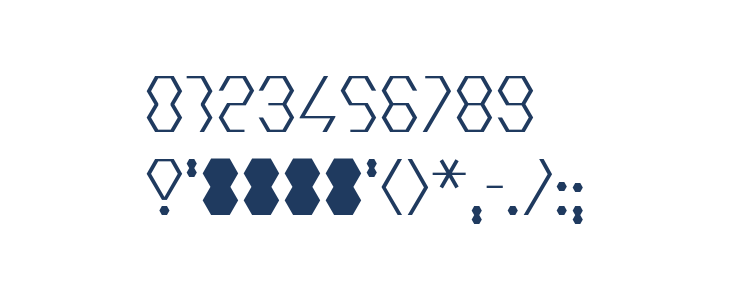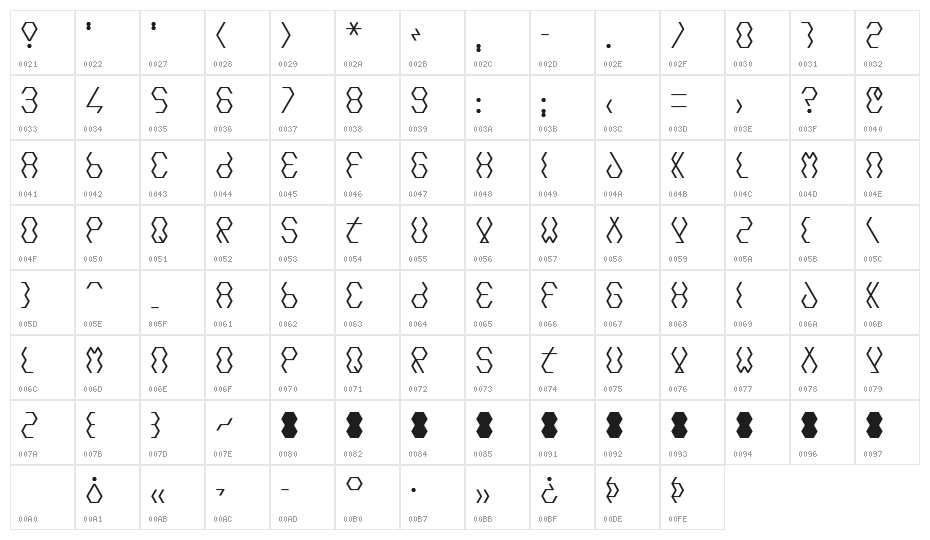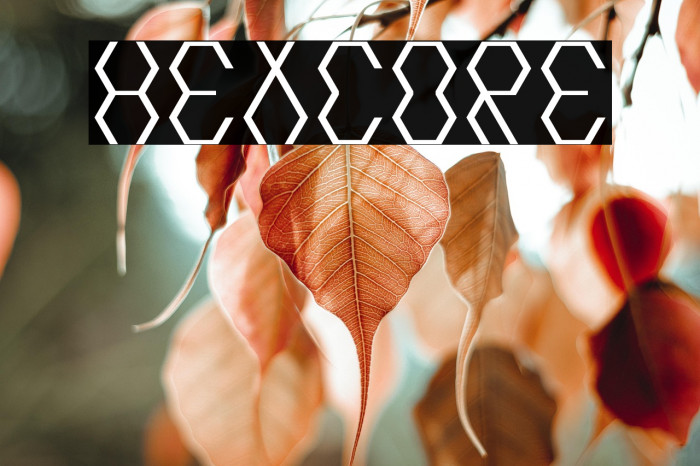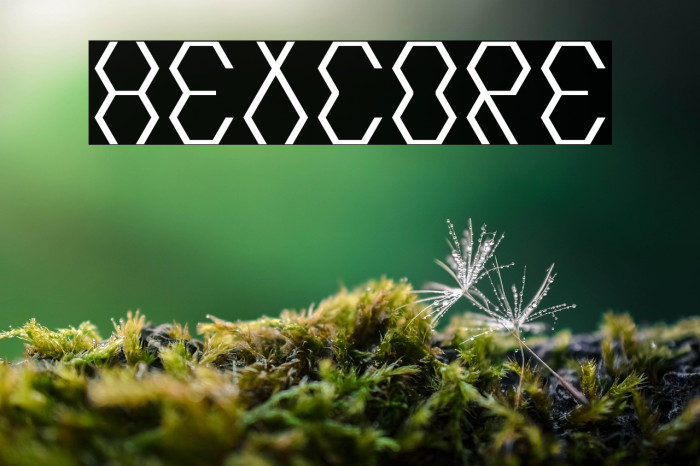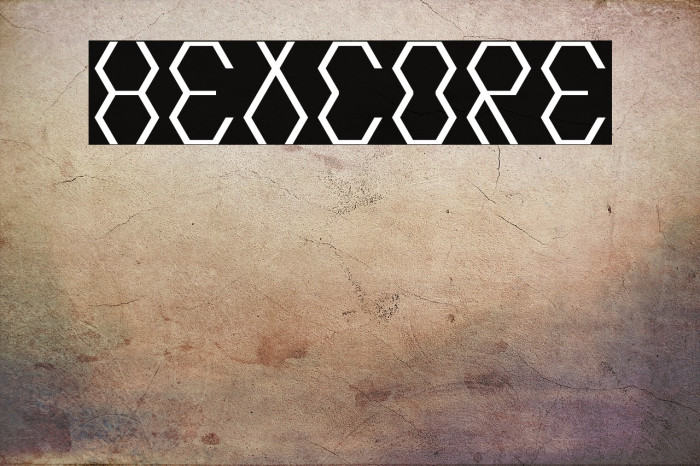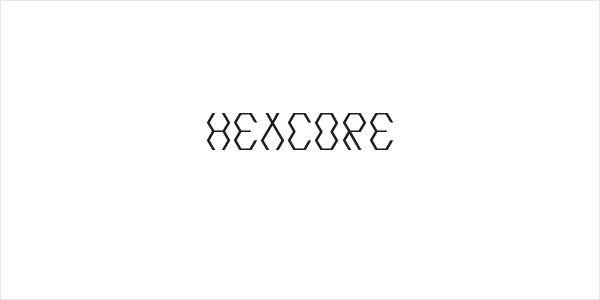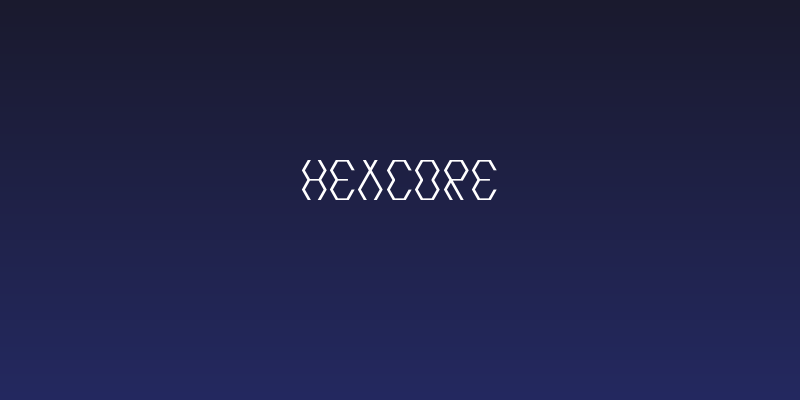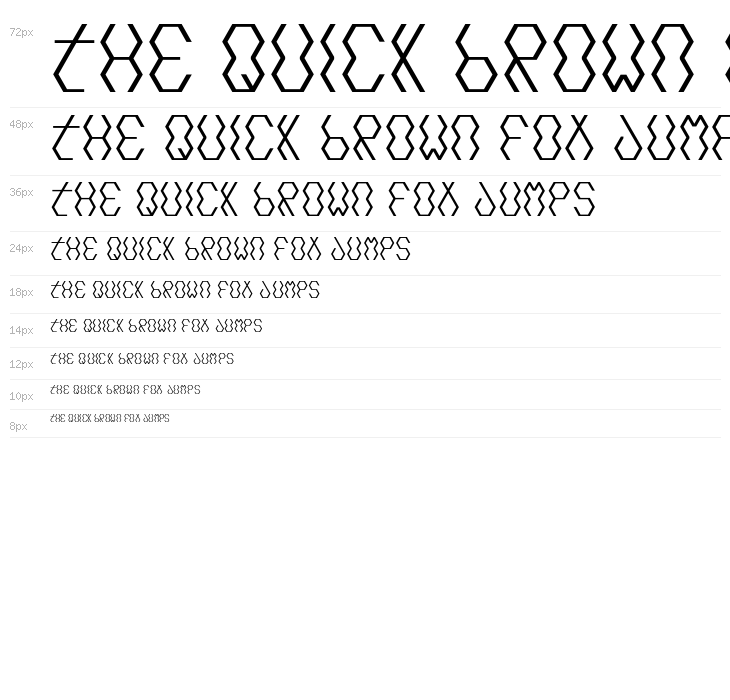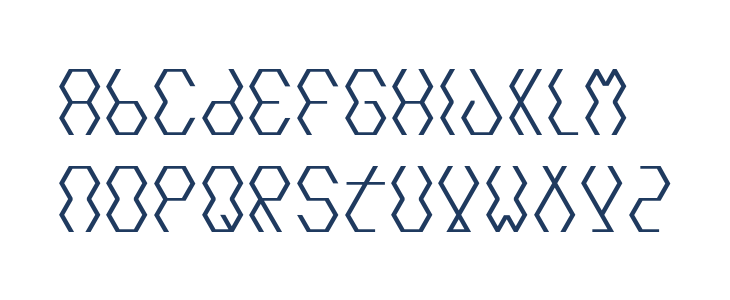
Hexcore Font
Hexcore Description
This font features a unique hexagonal design, where each character is constructed using angular lines and geometric shapes. The style is reminiscent of futuristic or sci-fi themes, with a distinct emphasis on sharp edges and a mechanical aesthetic. The uppercase and lowercase letters maintain a consistent structure, creating a cohesive and uniform appearance. Numbers and special characters follow the same design principles, ensuring a seamless integration across all glyphs. The font's bold and striking appearance makes it ideal for attention-grabbing designs.
| Proposed Projects | Ideal for sci-fi themed projects, tech branding, video game titles, and futuristic posters. |